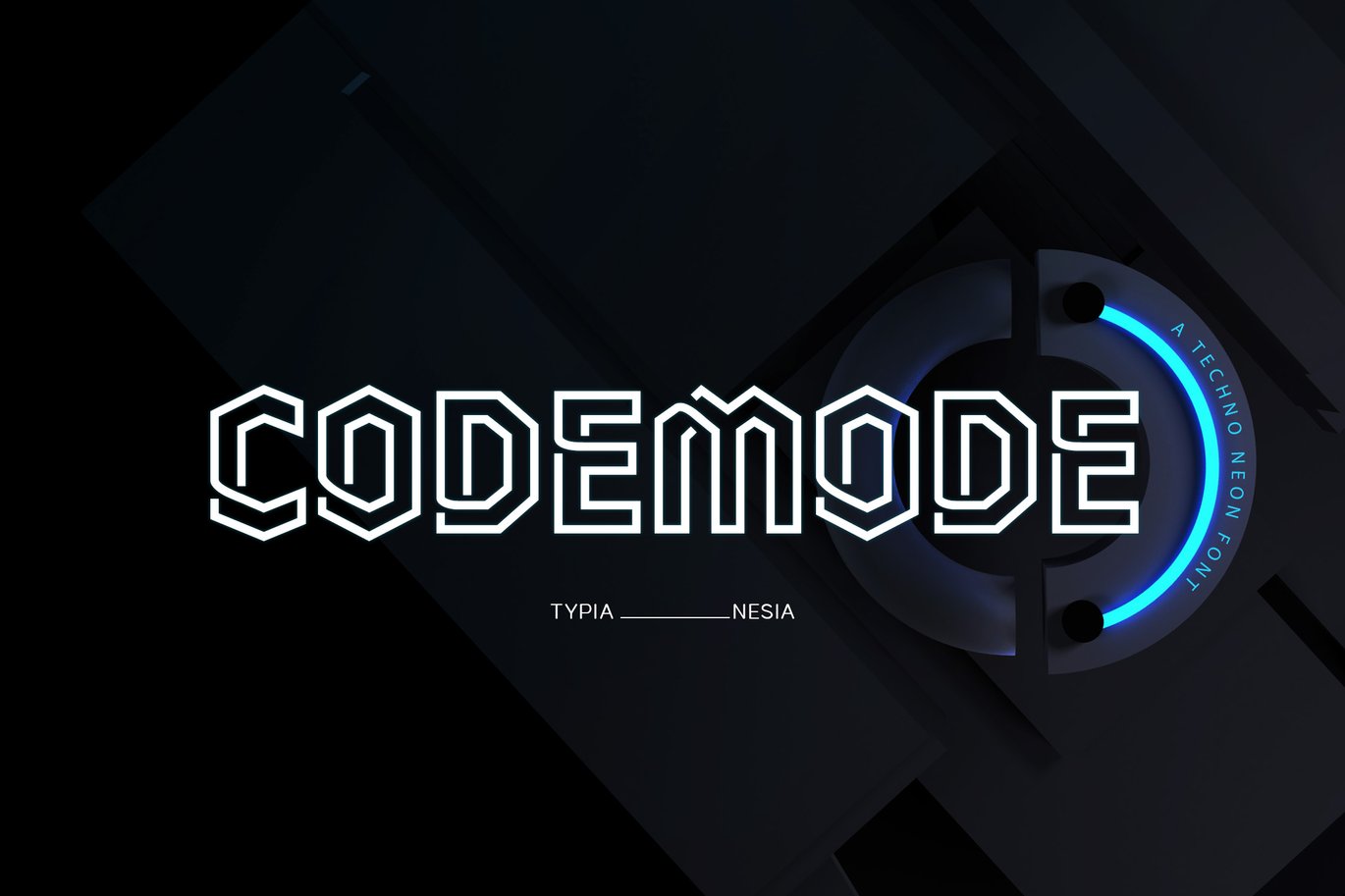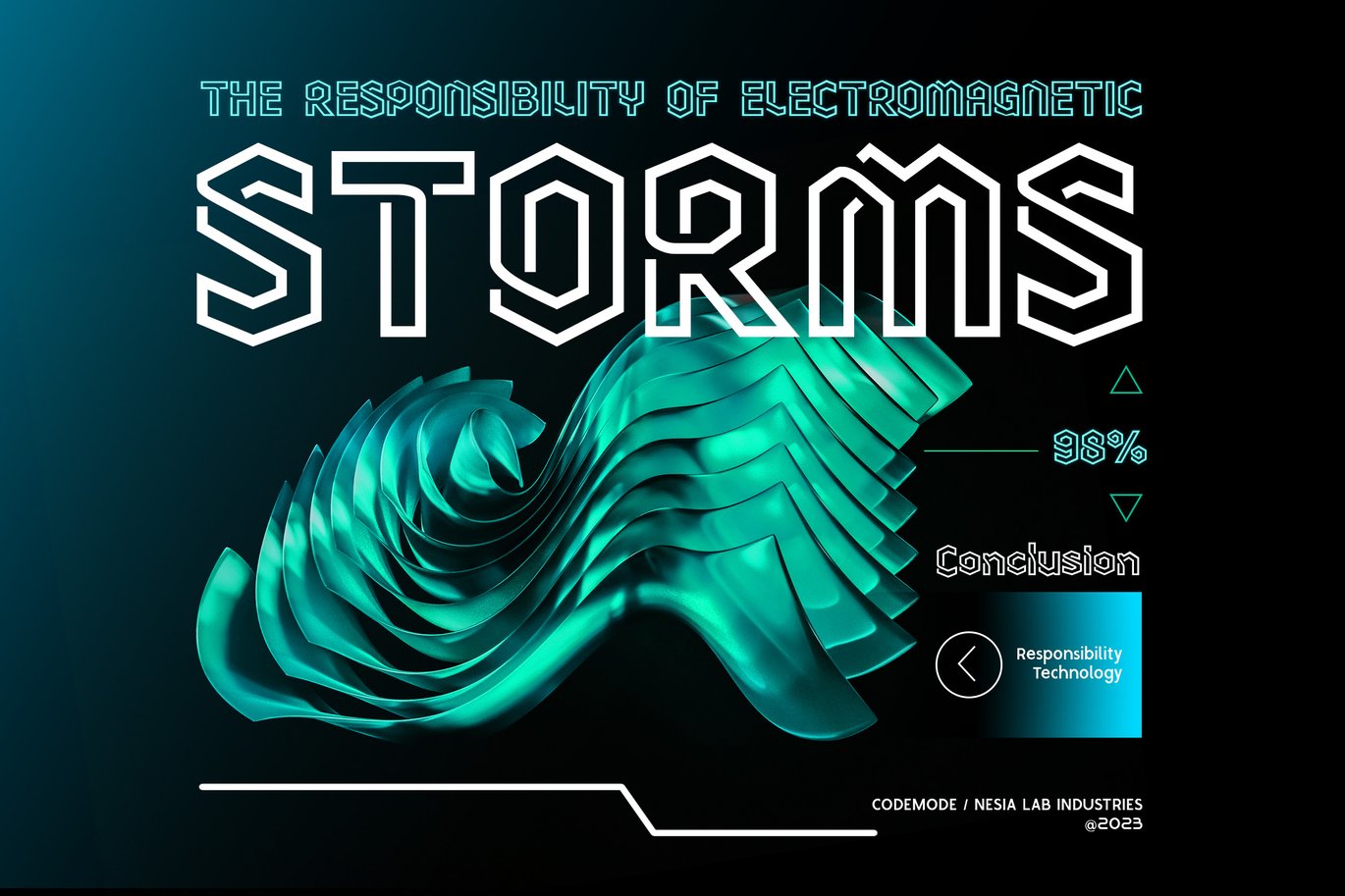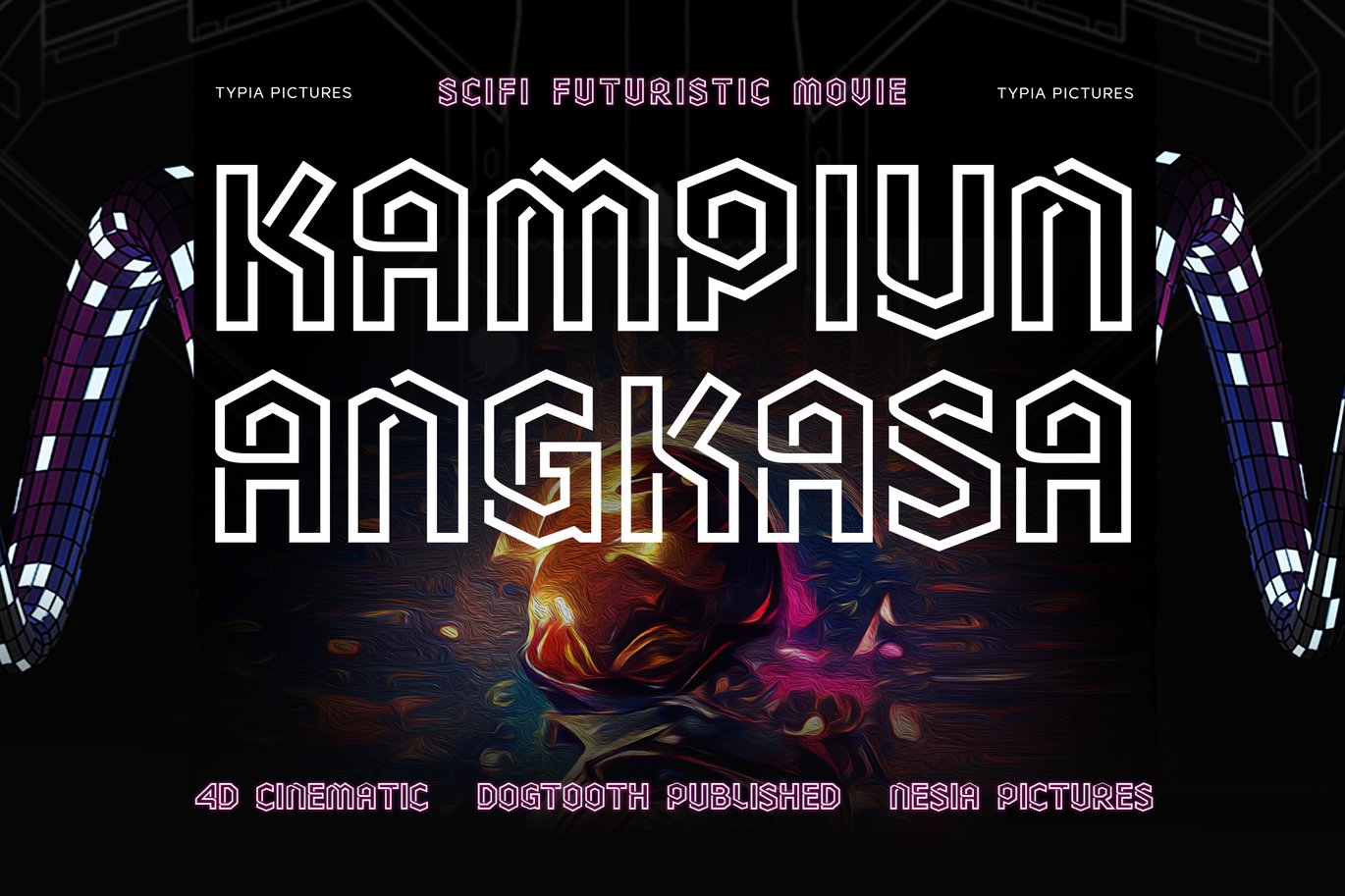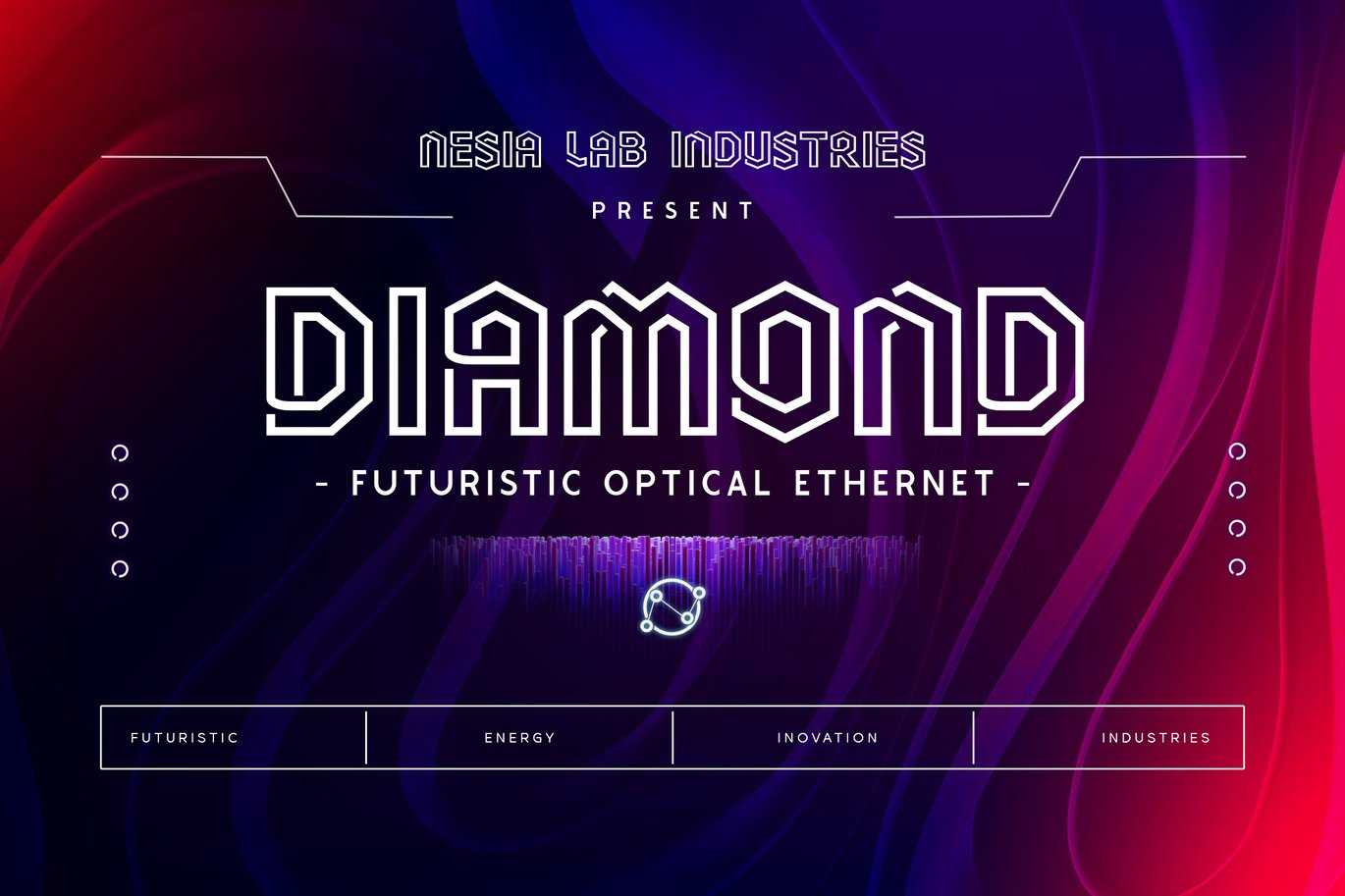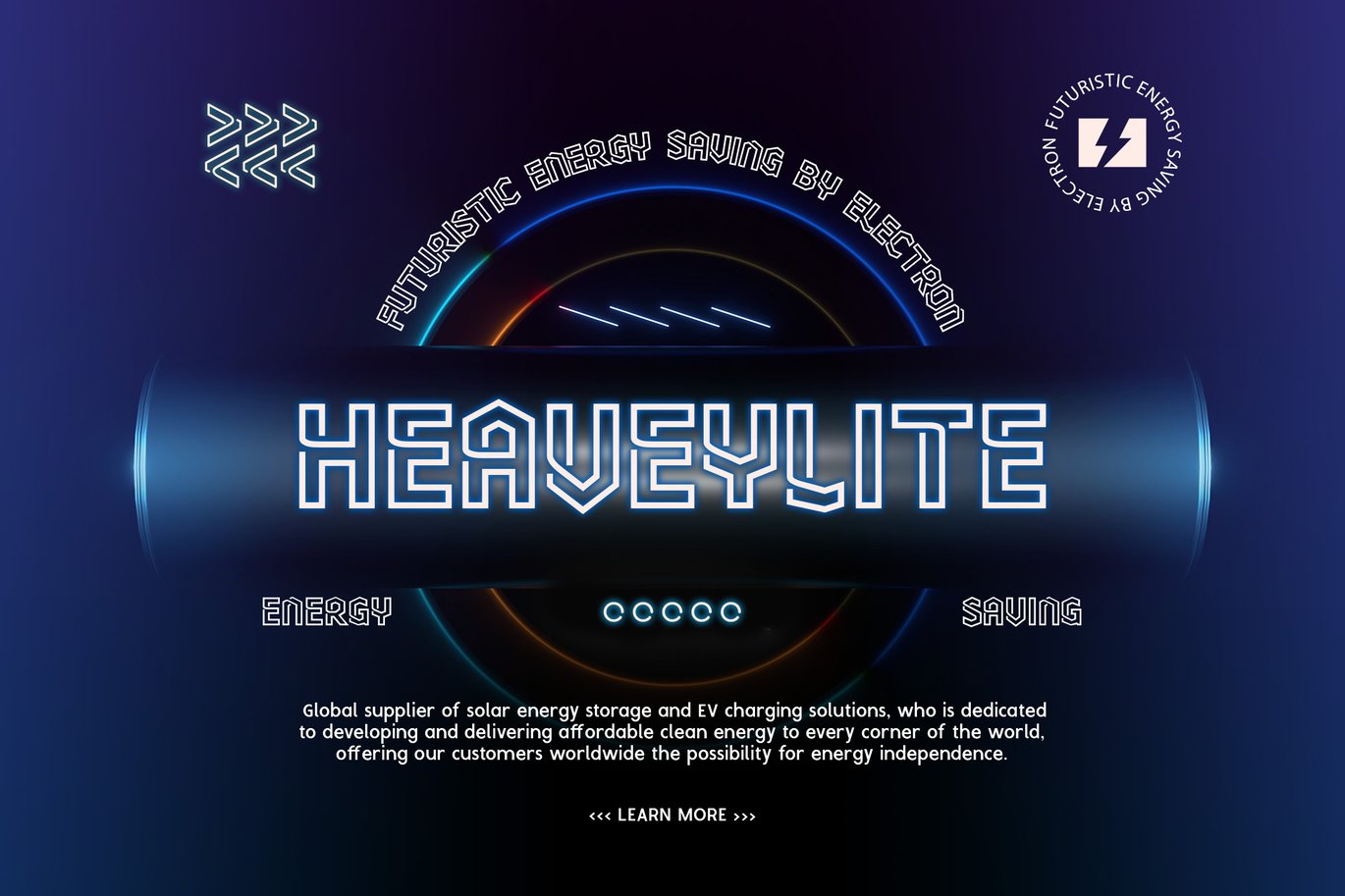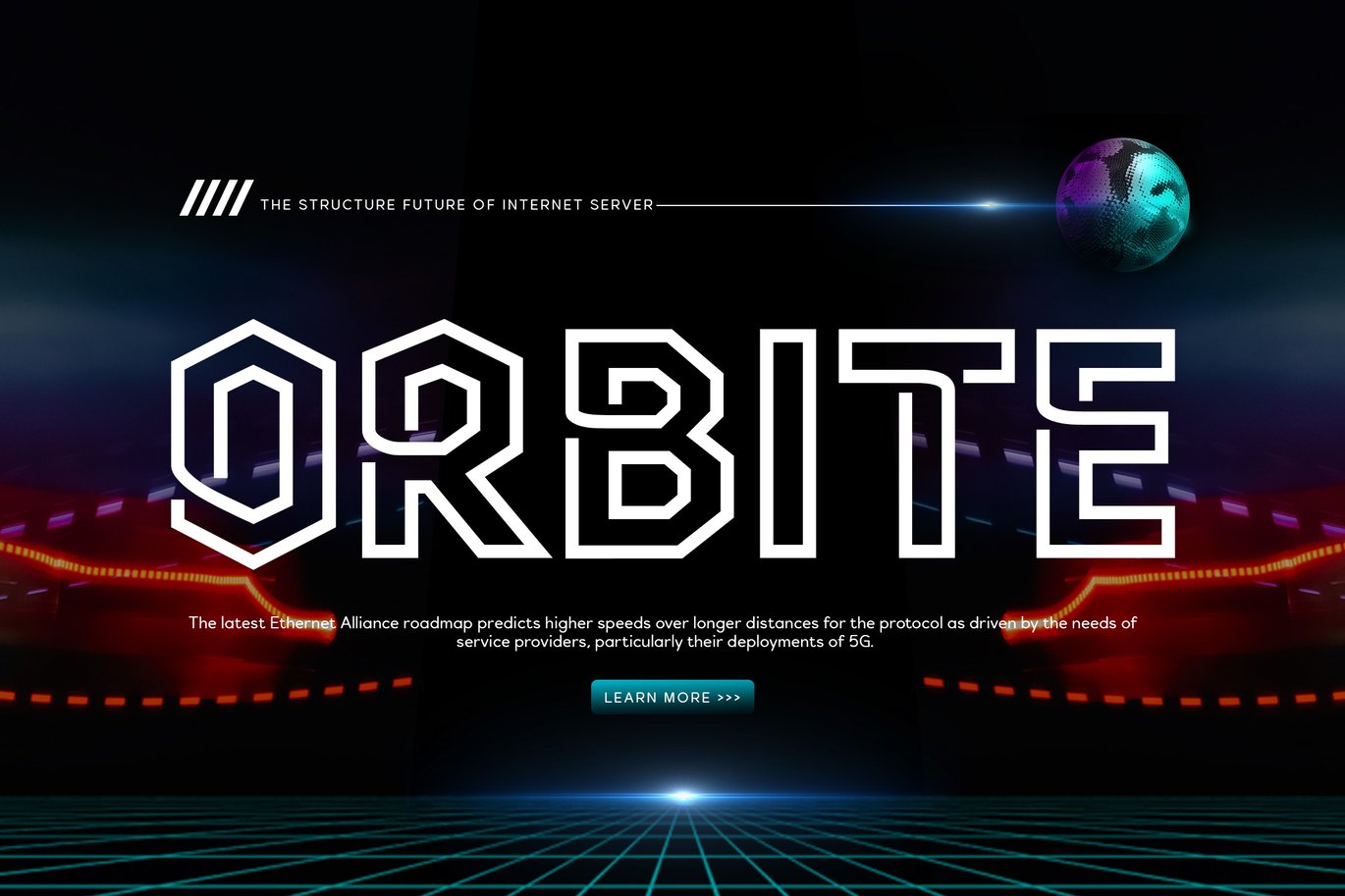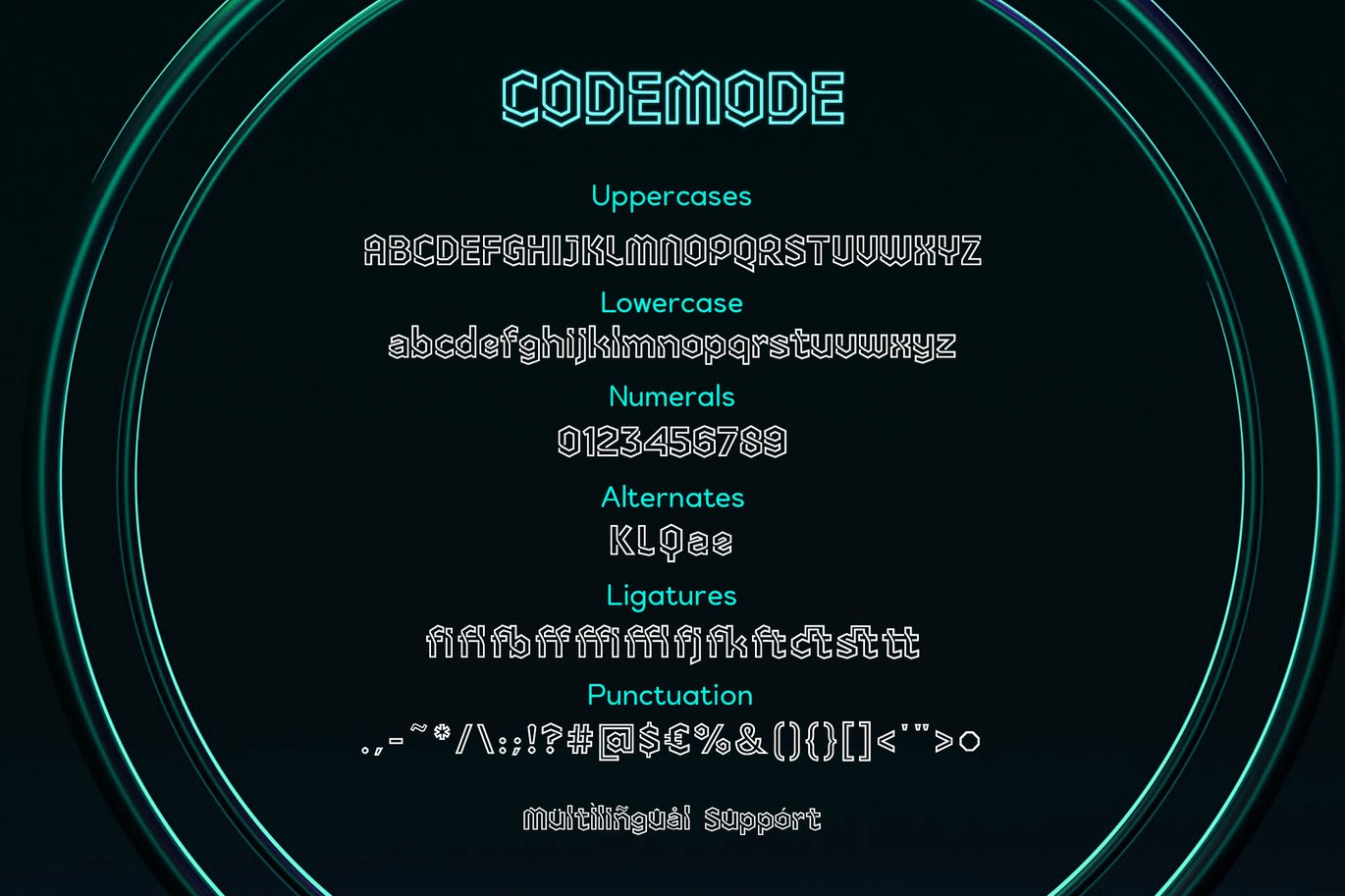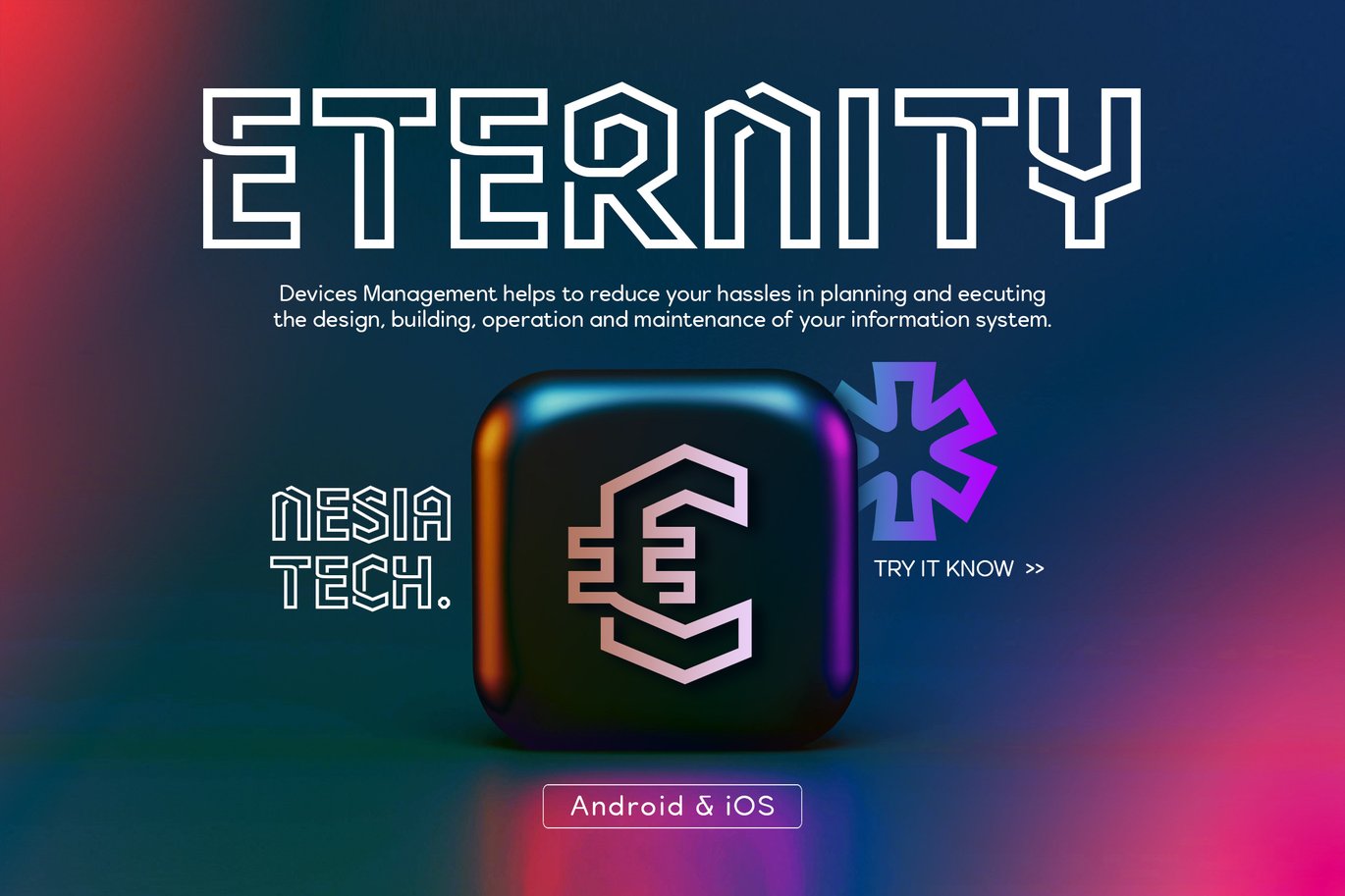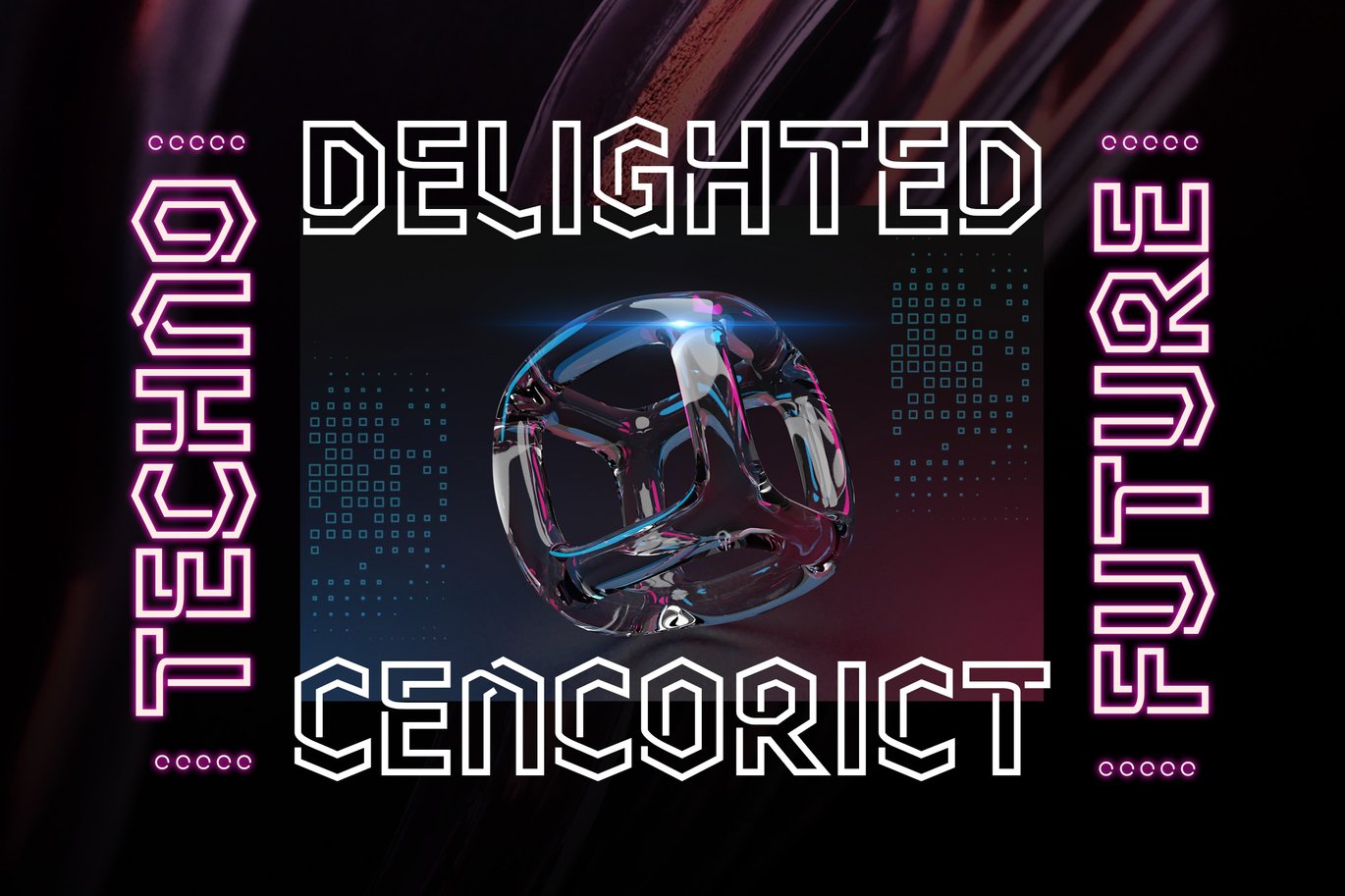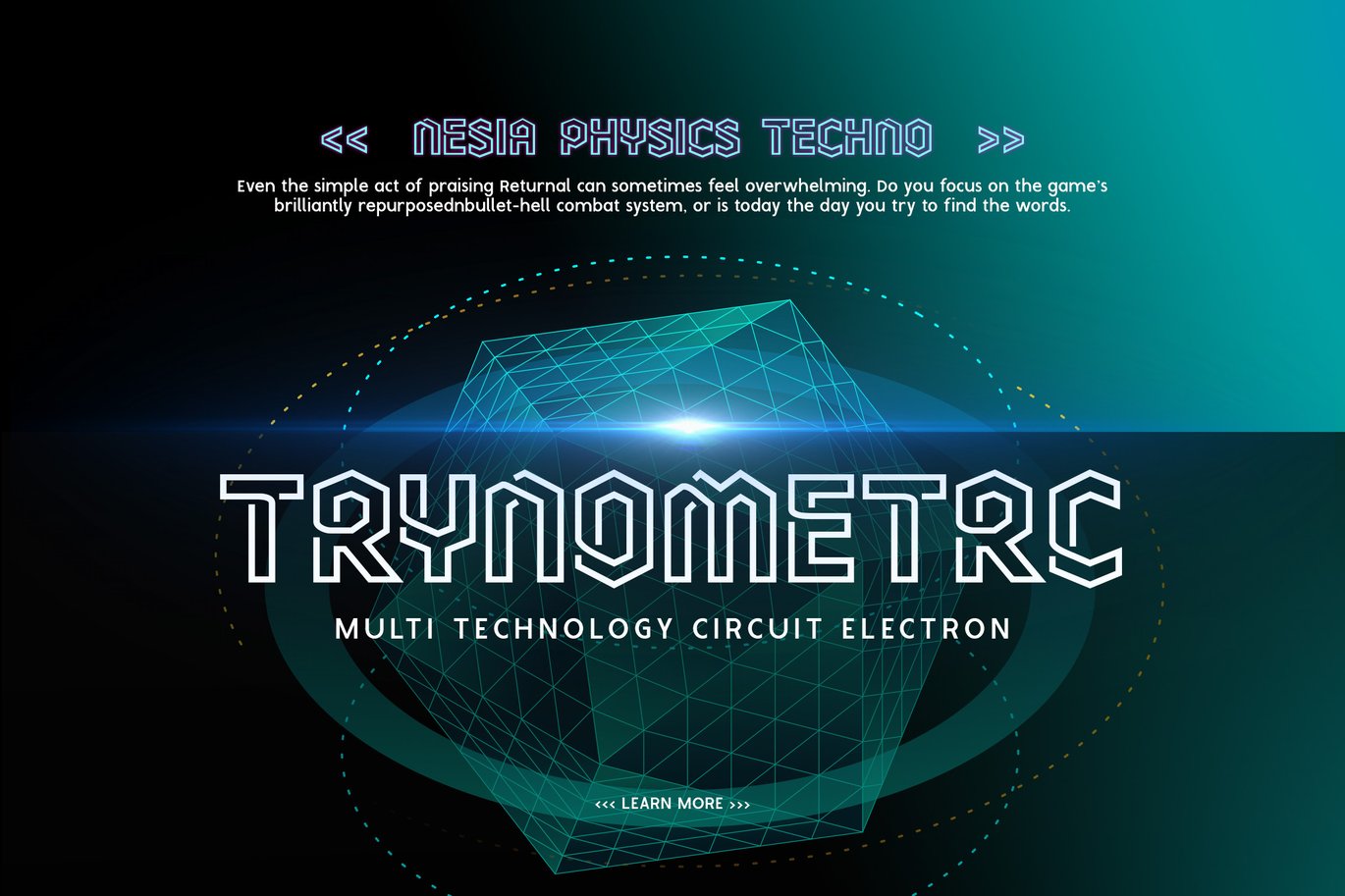
Codemode – Hexagonal Techno Scifi Neon Font
Codemode – Techno Scifi Font – Hexagonal Outline Sans – Retro Cafe Neon Sign – Display Font
Codemode is an Hexagonal neon sans font that brings a futuristic and eye-catching vibe to your designs. This display font is perfect for applications in cafes, front stores, signage, posters, and any project that demands attention. Codemode features clean lines, sharp edges, and a geometric structure that exudes a modern and edgy appeal. Its neon-like appearance adds a touch of futuristic aesthetics, making it ideal for designs that seek to stand out. Codemode’s expertise lies in capturing the essence of contemporary design and creating visually striking displays with its unique Hexagonal style.
Illuminate your designs with Codemode and embrace the futuristic neon vibe!